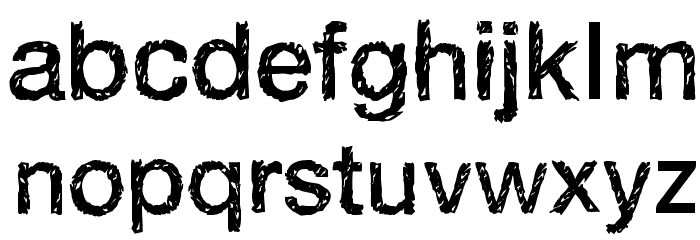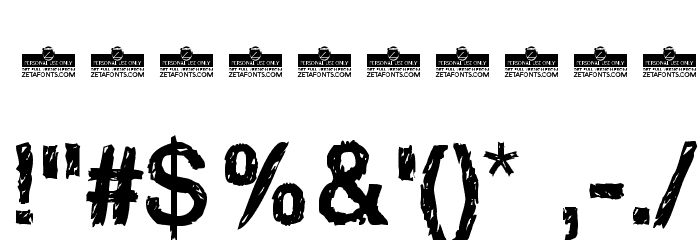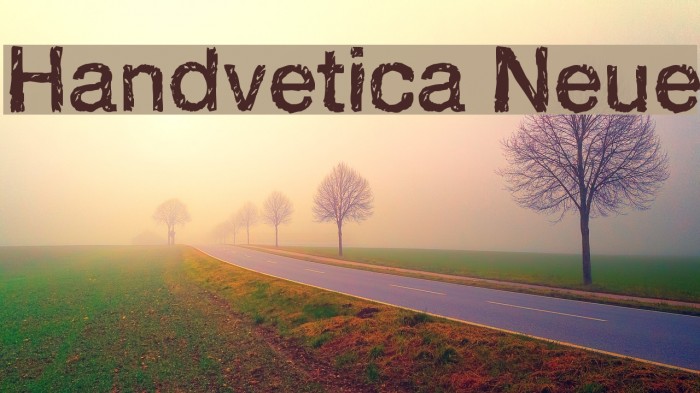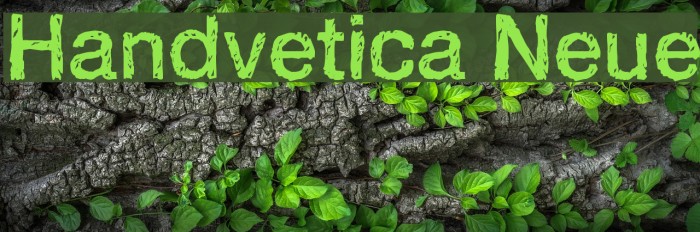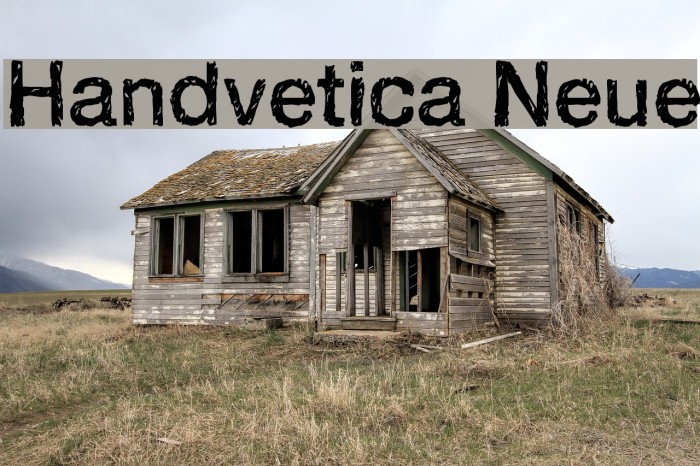
Handvetica Neue Font
This font features a unique, distressed style that gives the appearance of being hand-drawn or sketched. Each character is crafted with irregular edges and a textured look, adding a sense of dynamism and creativity. The uppercase and lowercase letters maintain a consistent height and width, ensuring readability while still offering an artistic flair. The numbers and special characters follow the same design principles, making them suitable for various creative applications. This font is ideal for projects that require a bold statement or a touch of individuality.
A distressed, hand-drawn style font with textured, irregular edges.
- Proposed Projects: Ideal for posters, album covers, artistic branding, and creative advertising.